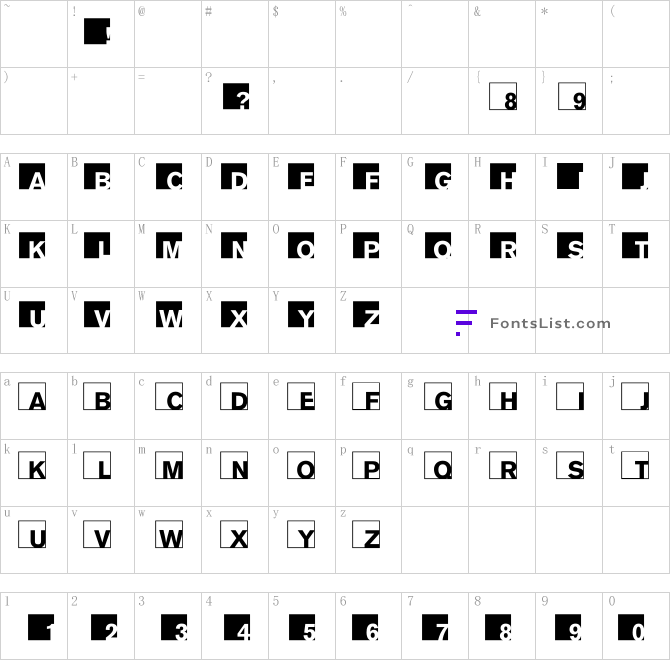
- Font Name:ABCLogosXYZ
ABCLogosXYZ-Bold.ttf is a very beautiful artistic font, ABCLogosXYZ-Bold.ttf is widely used in the design and printing of various books and pictures,ABCLogosXYZ-Bold.ttf has a strong visual impact,ABCLogosXYZ-Bold.ttf is a commonly used font in newspapers, magazines and books, and is used in posters, e-commerce Poster design, store design, logo design, font design and other fields.ABCLogosXYZ-Bold.